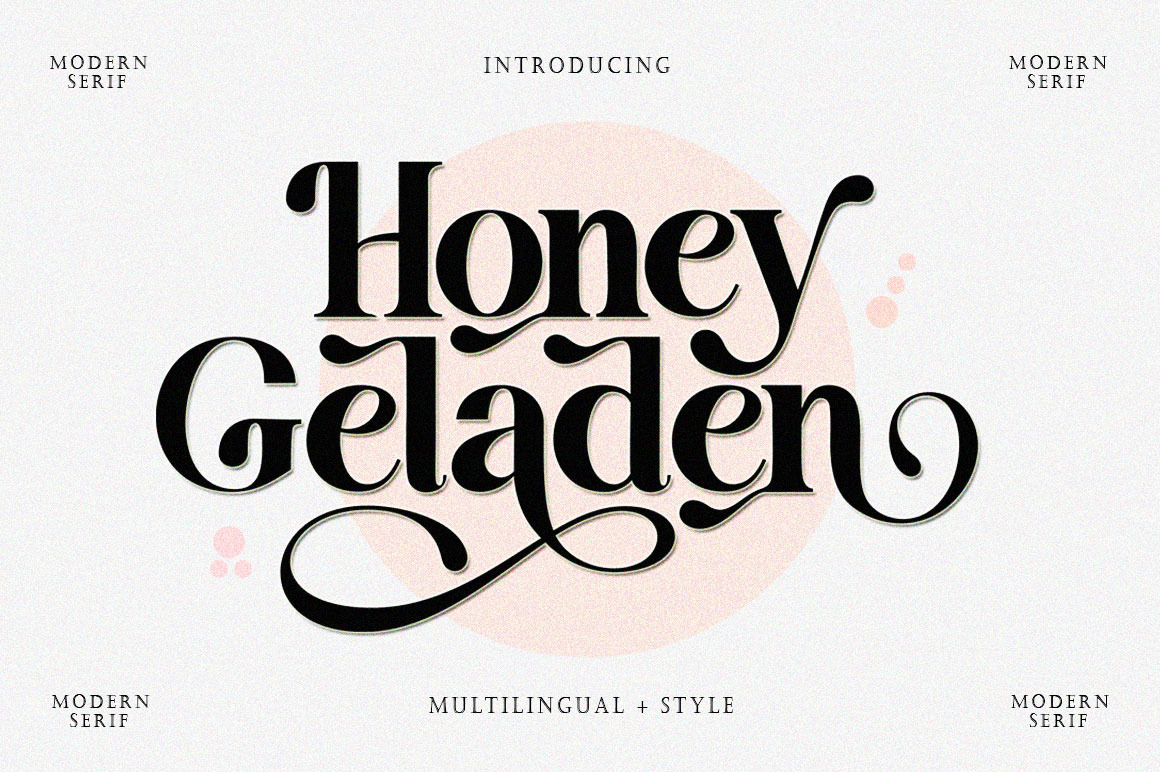
Honey Geladen
Honey Geladen is a font family published by MasterType.
Honey Geladen is a beautiful, versatile serif font. This font is characterized by a serif style with a luxurious style in a modern form, but also a friendly and playful style in bold, Best Swashed has glyphs to give crafters more options in designing. This modern style will make a design appear more classy, elegant, unique and edgy.
Honey Geladen is a font suitable for many projects, for modern or even retro vintage designs, branding, logos, crafts, stickers, sublimation, wedding invitations, and more. This font is suitable for a variety of projects such as logos, branding, magazines, signage, fashion, and many more.